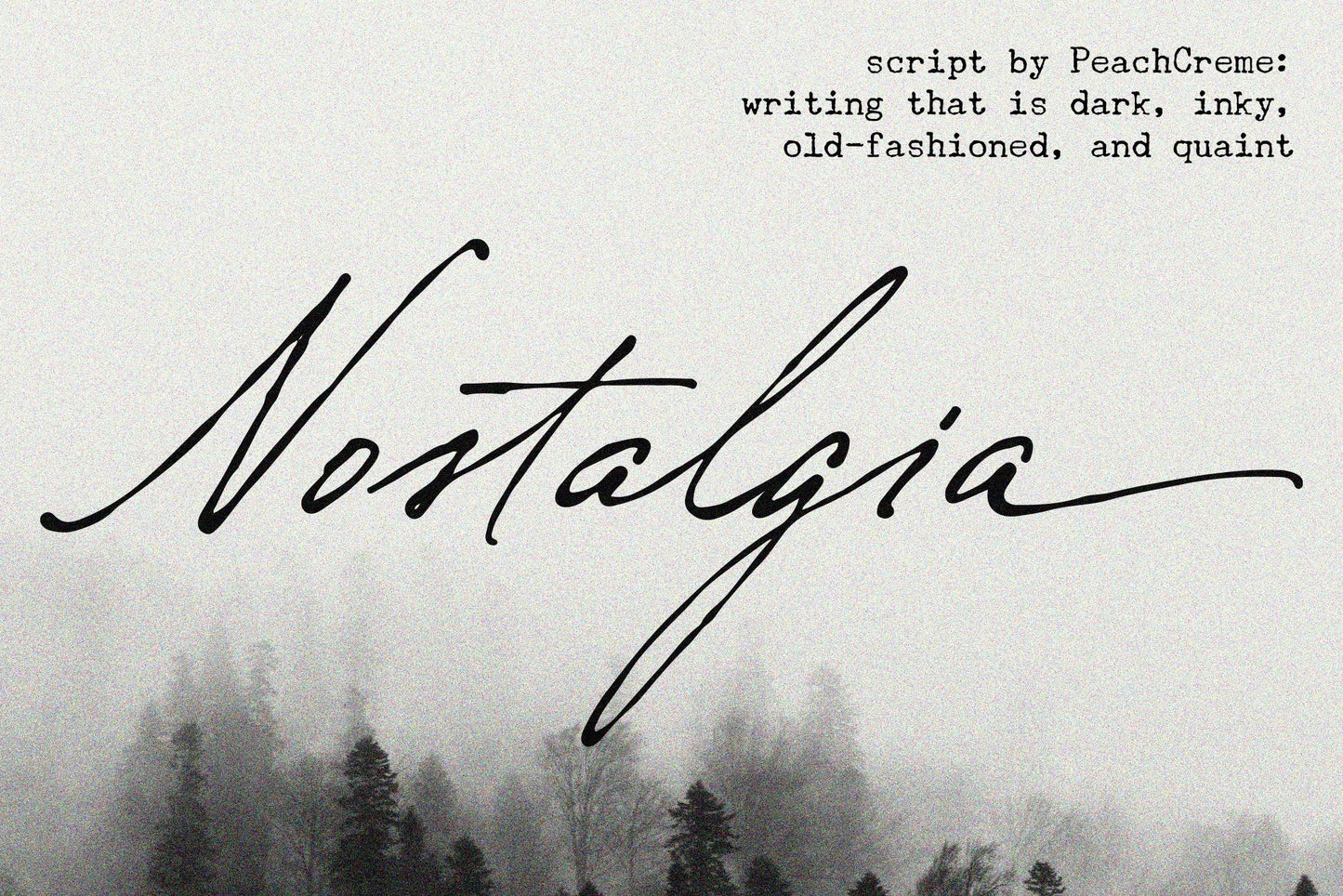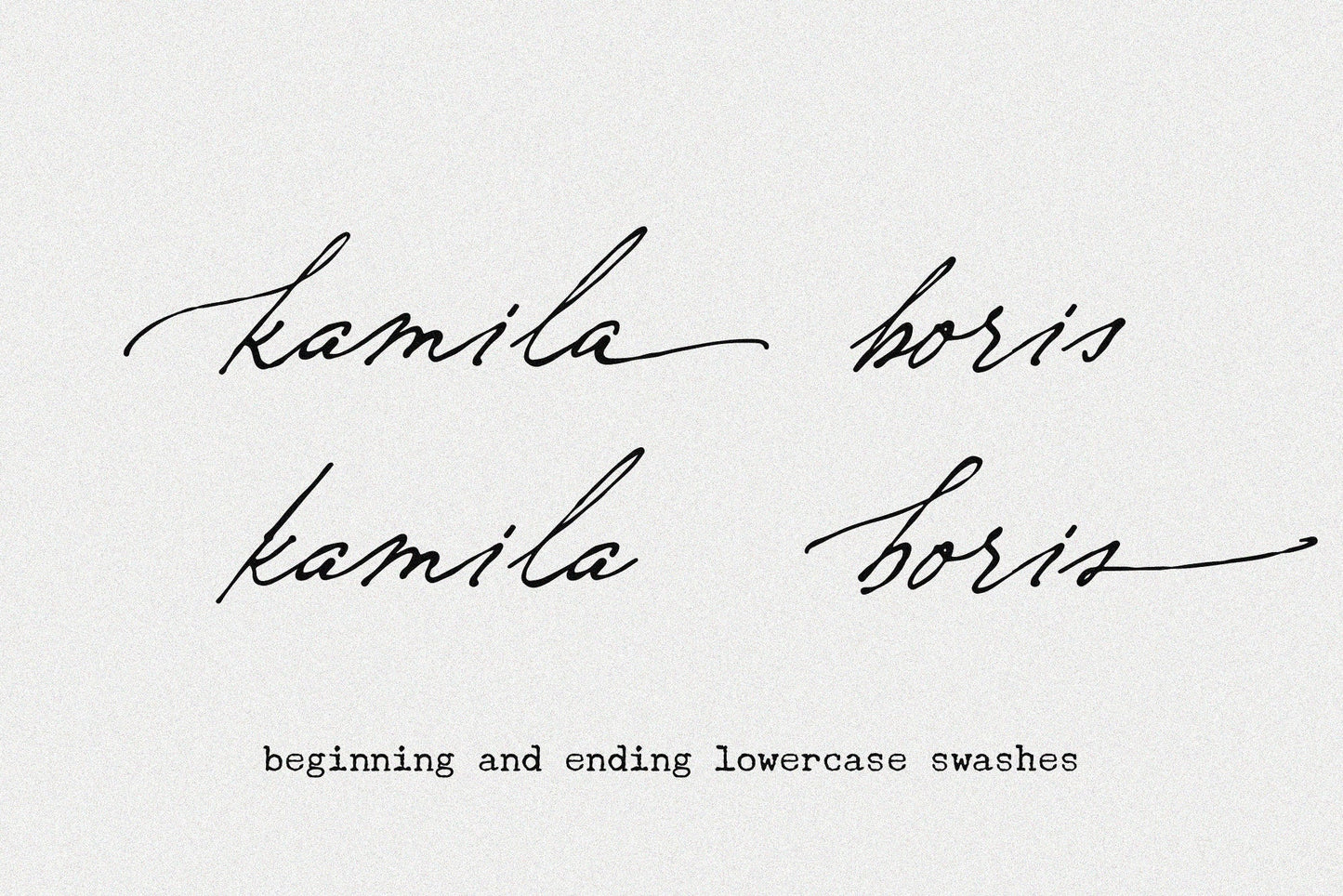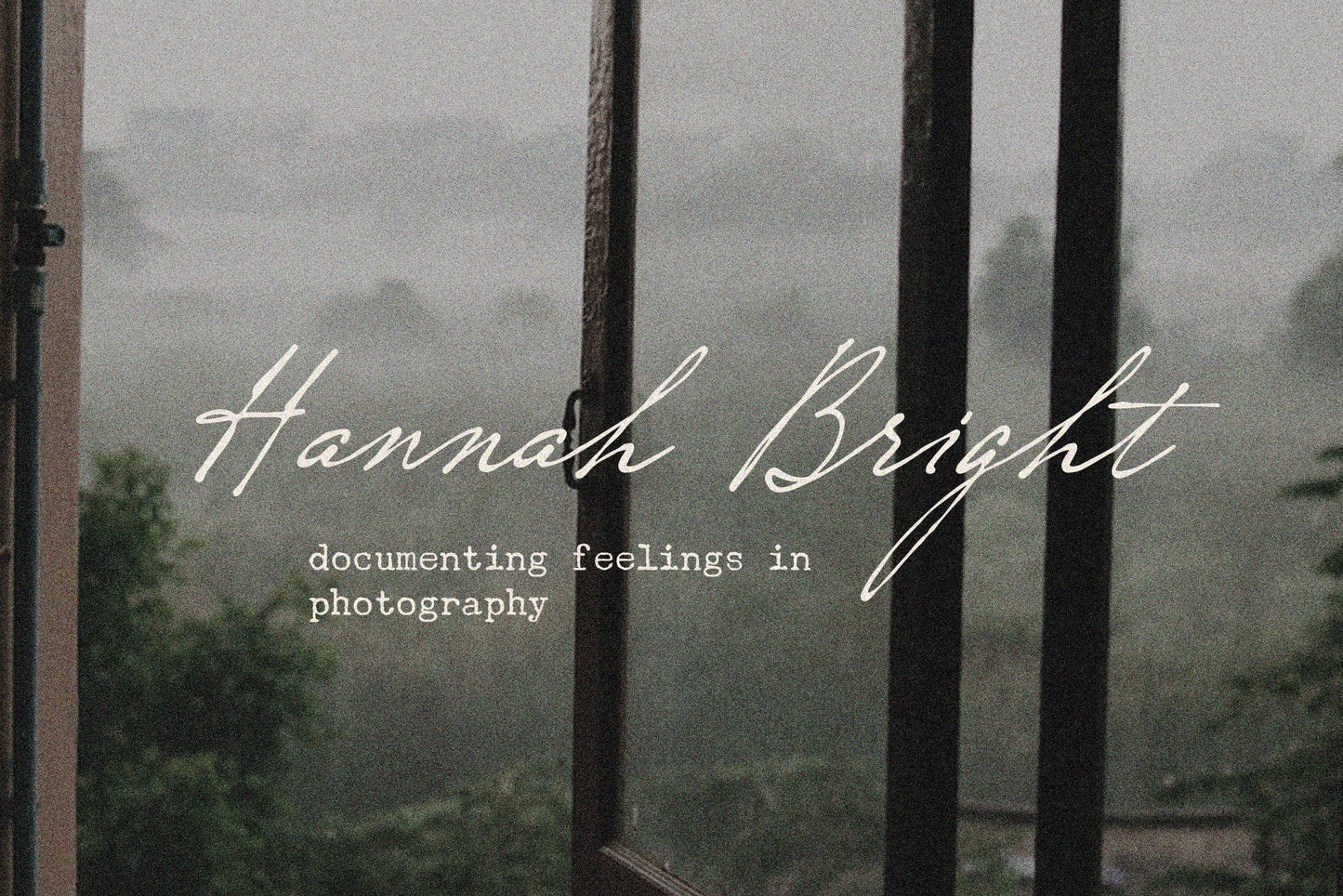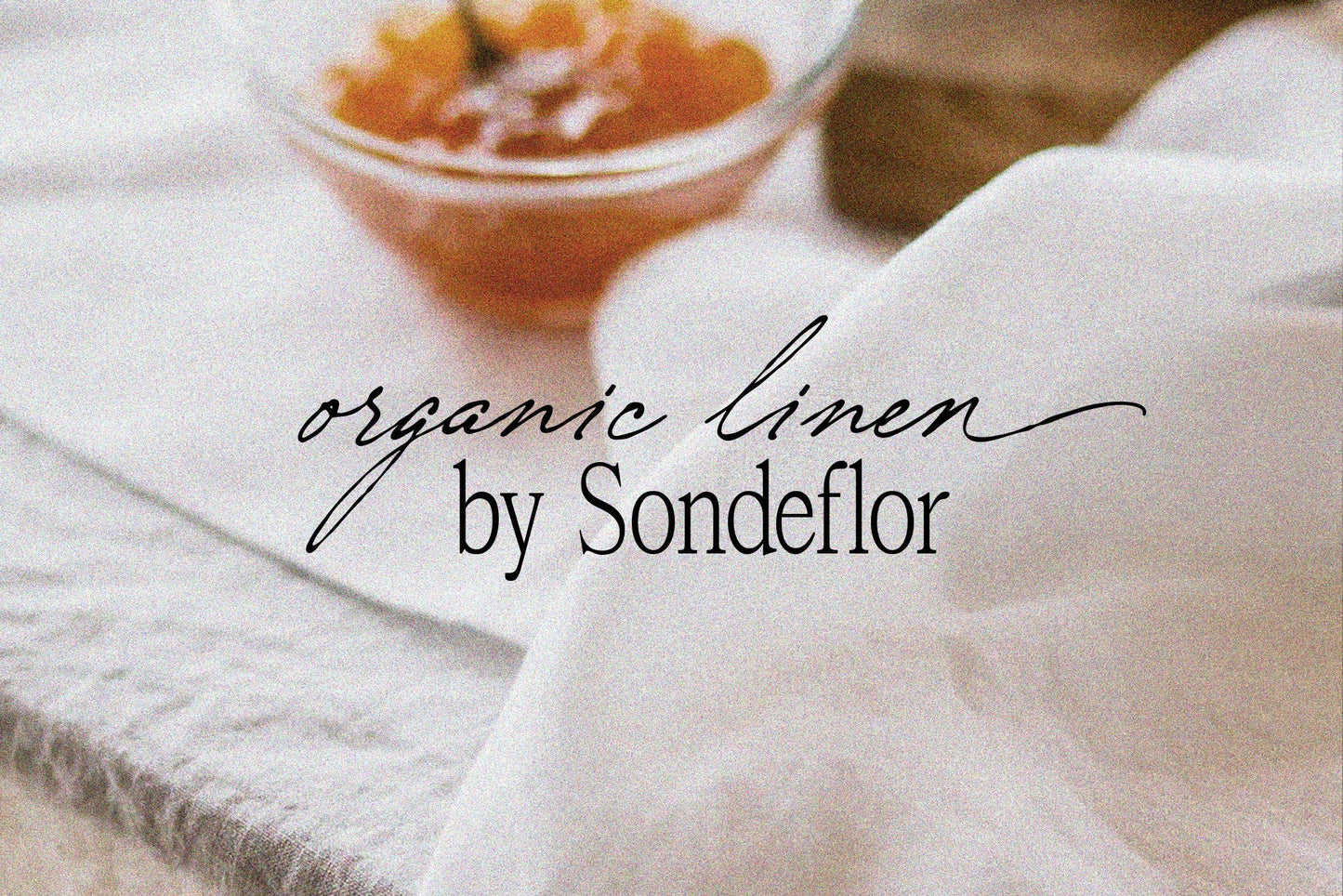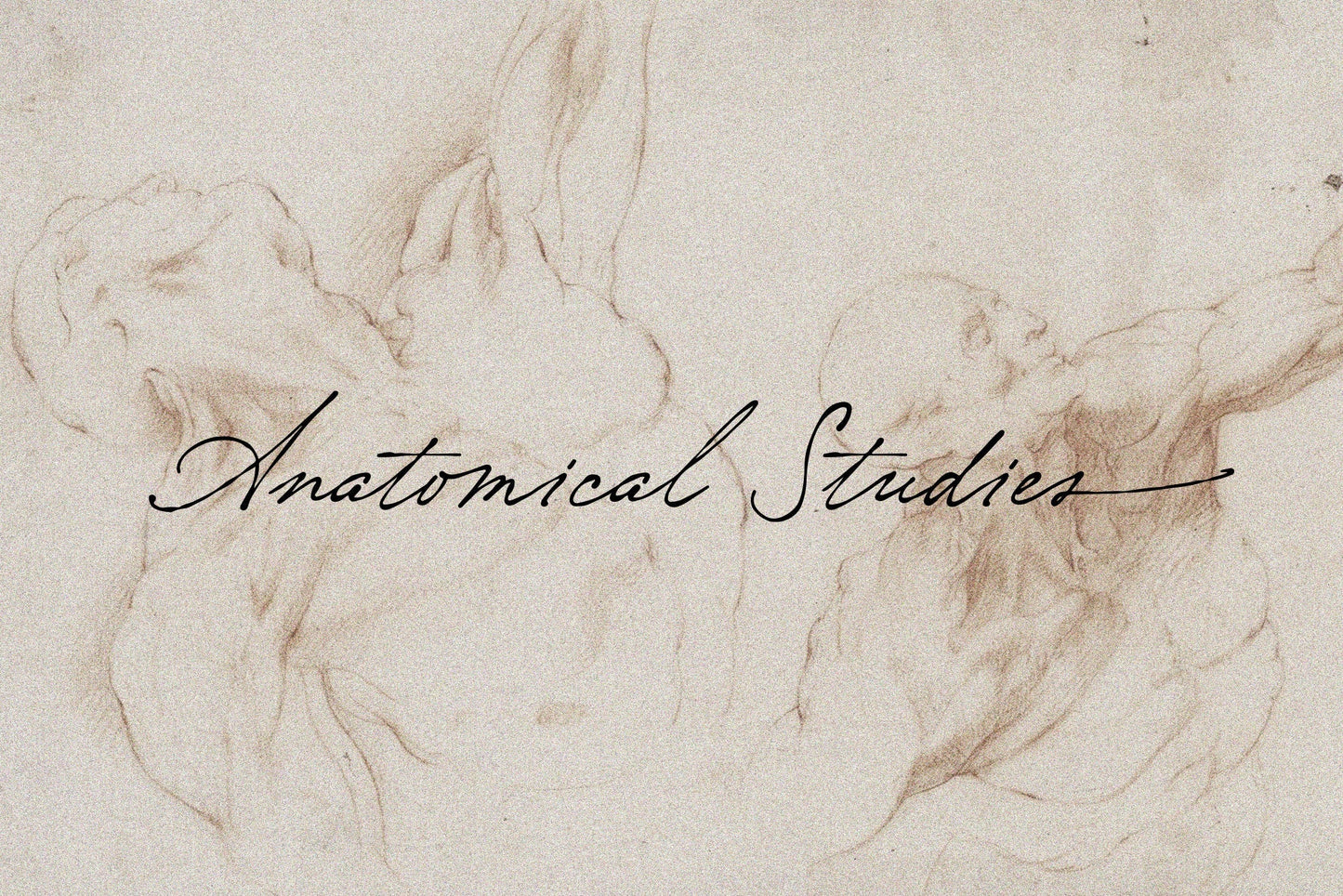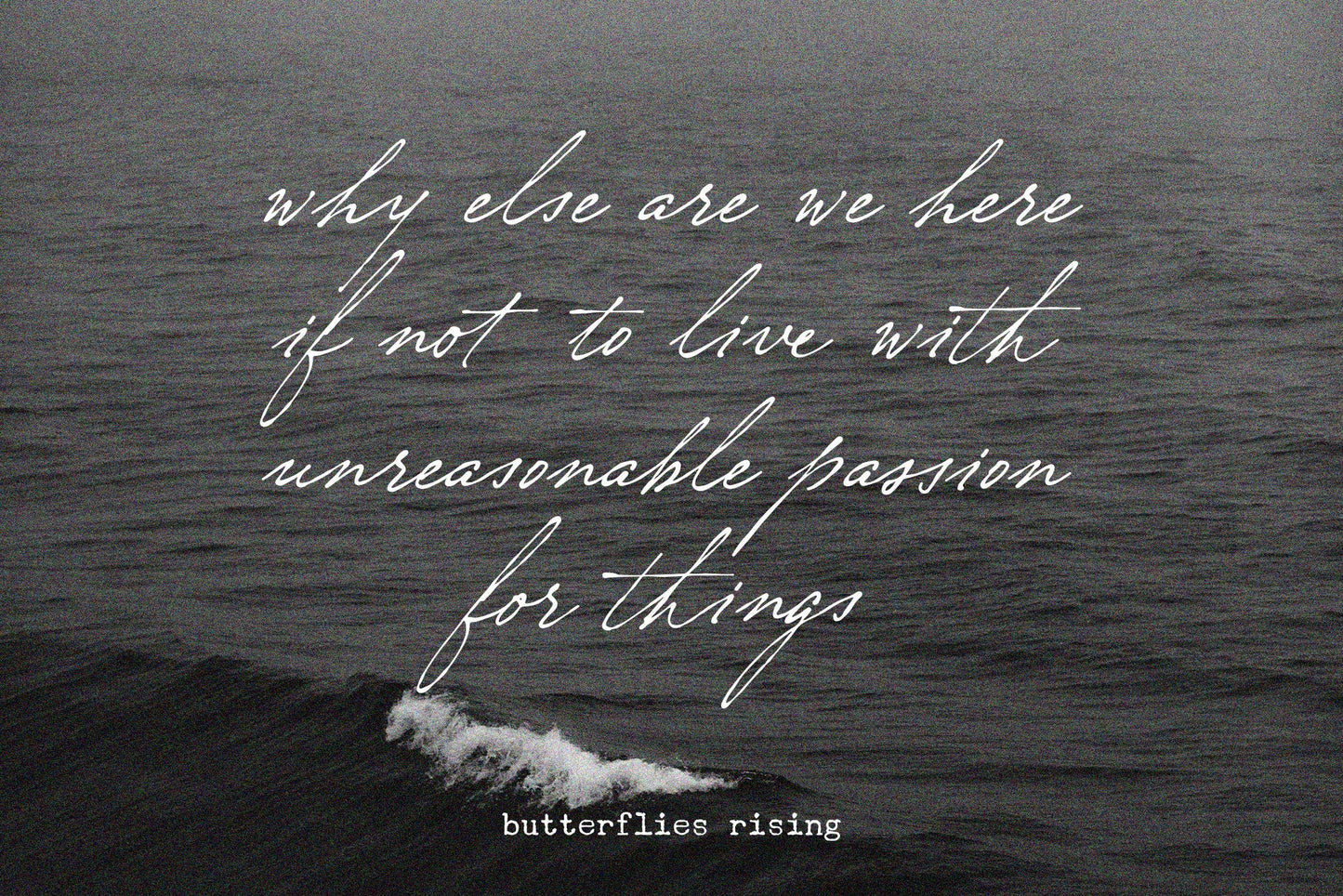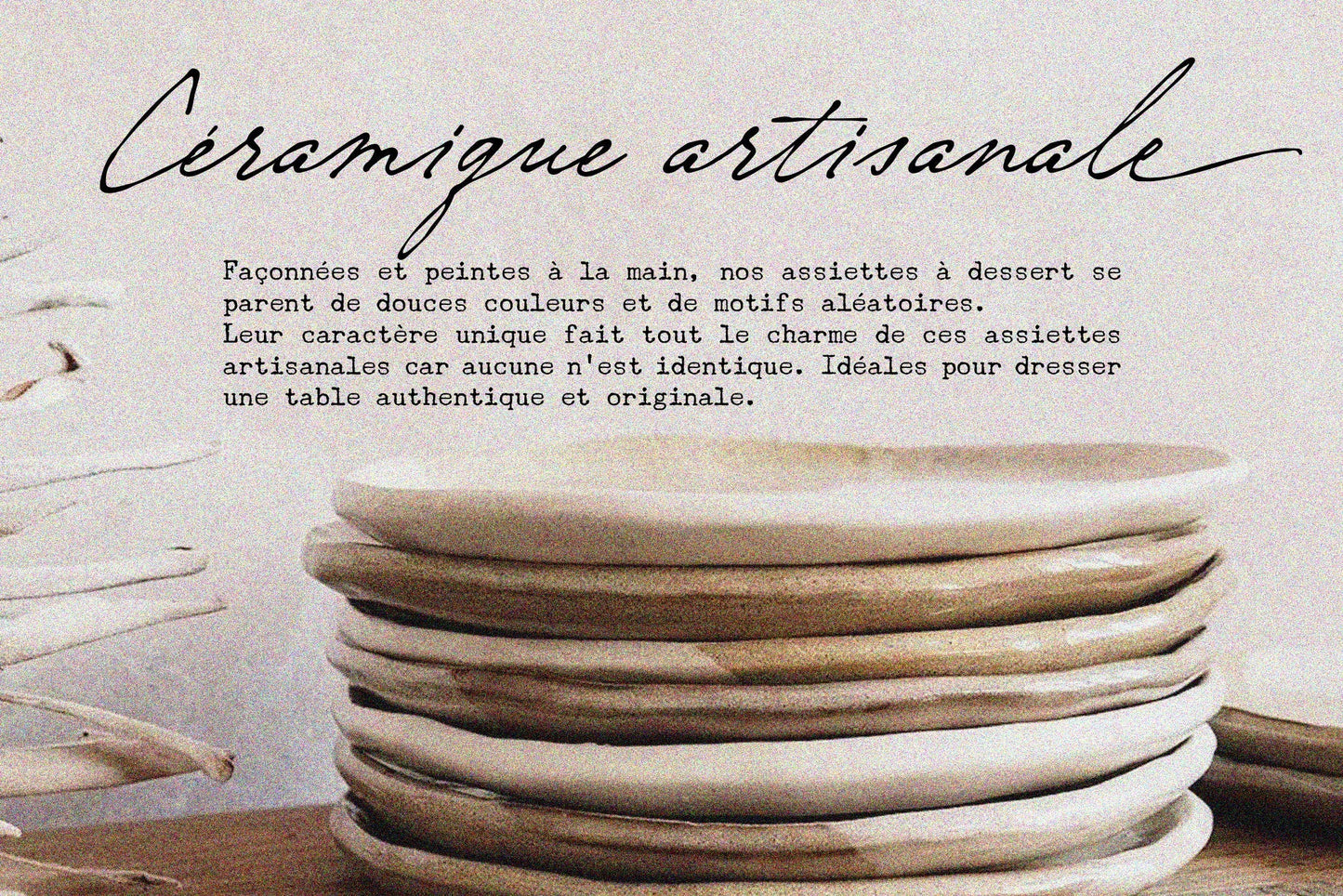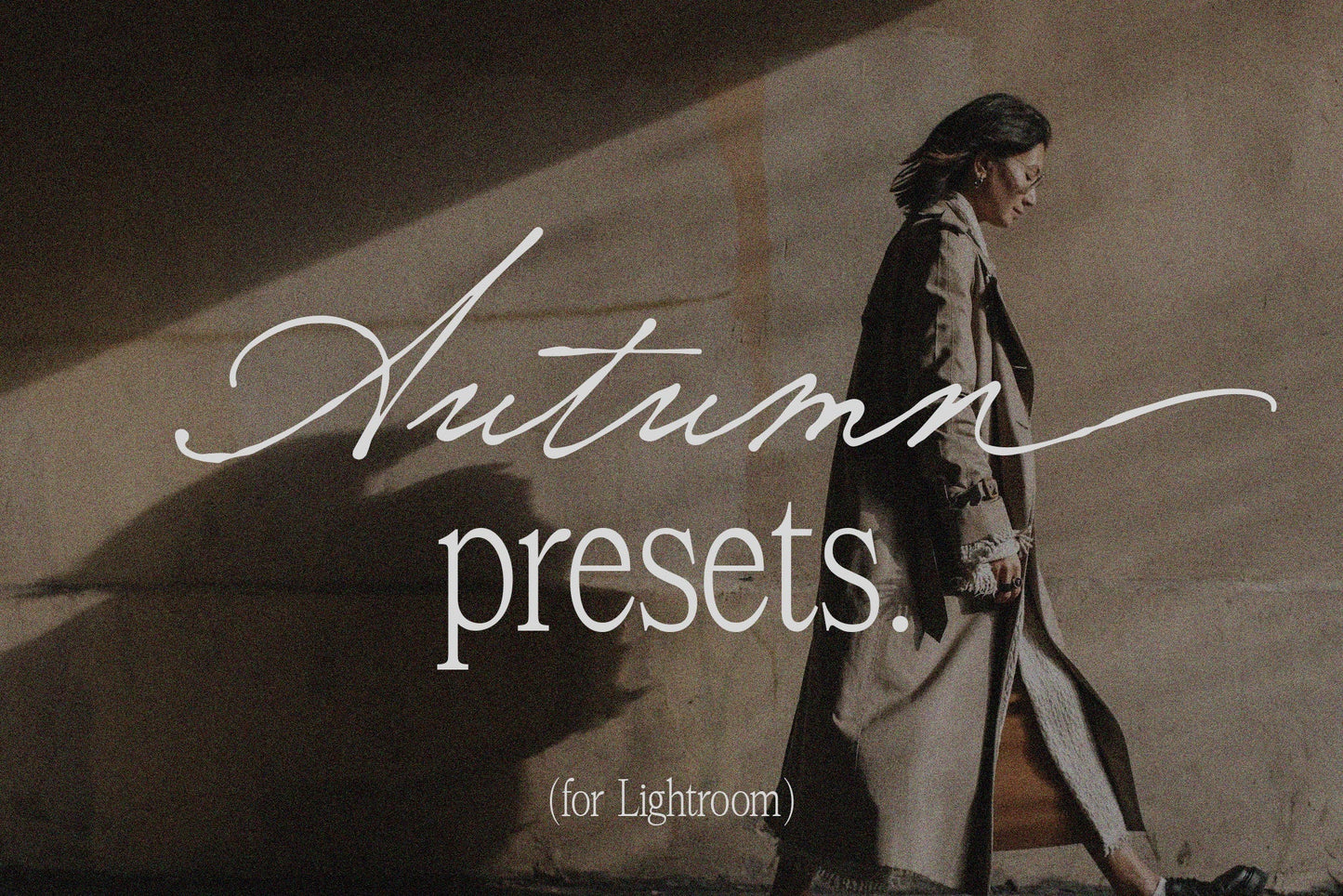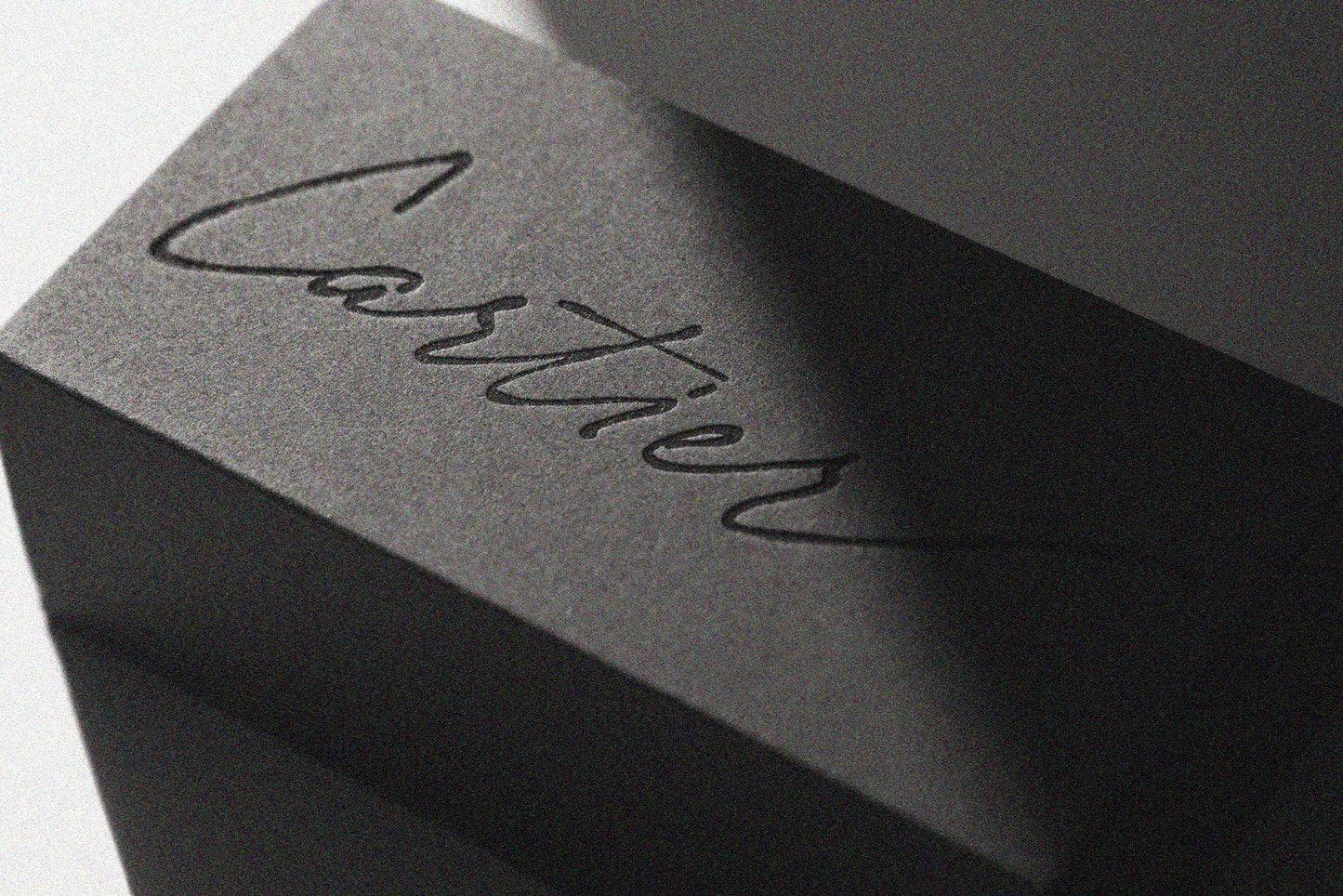
Nostalgia // vintage font
The "Nostalgia" font is a dark, vintage style that includes all the basic characters (letters, numbers, and punctuation) and is very simple to read. "Nostalgia" was inspired by inky handwriting with a natural flow and has fantastic starting and ending lowercase swashes. It works well for a wide range of projects, from wedding stationery to Instagram quotes to contemporary logos to packaging to websites.
Consequently, these top-notch, traditionally-styled hand-drawn characters would be an excellent and priceless resource for those who want to write by hand. The headlines and titles you create will look fantastic with this font.